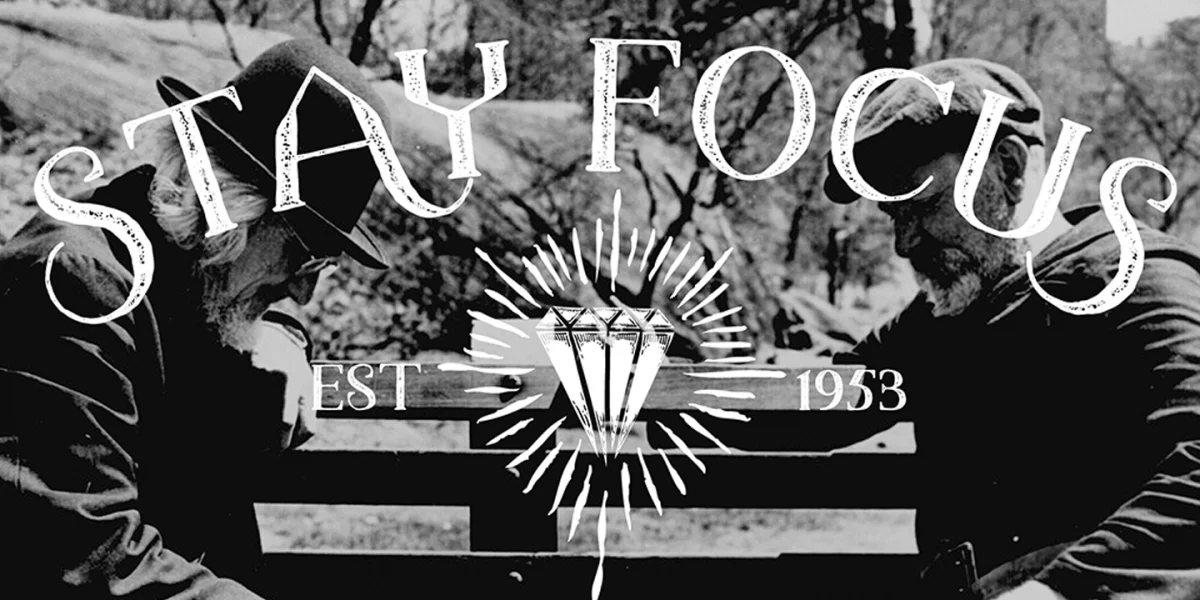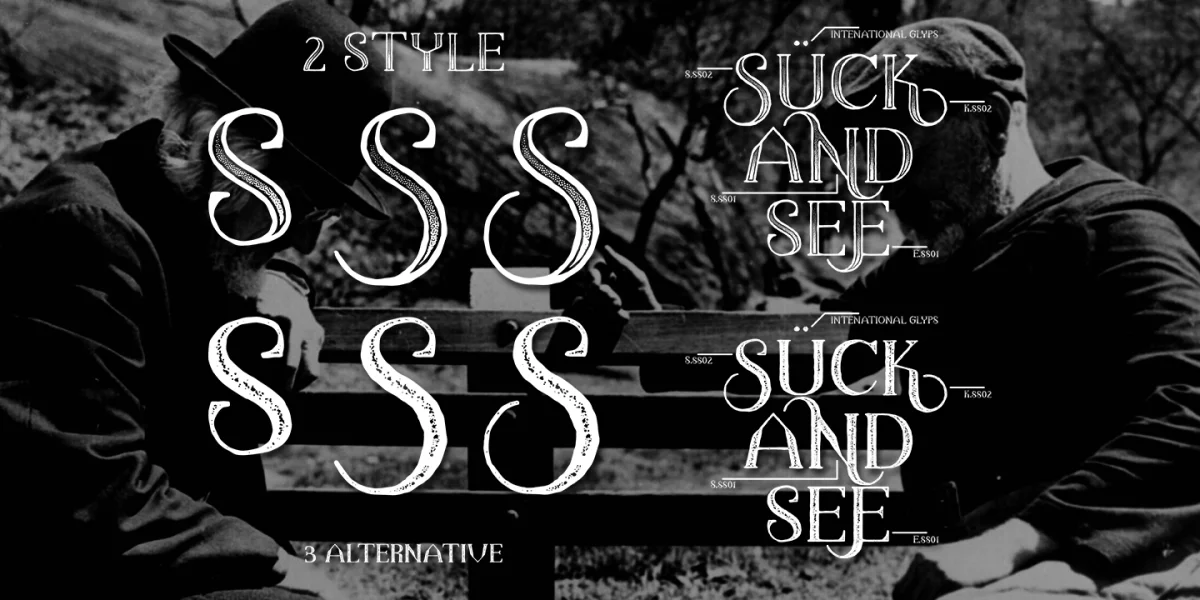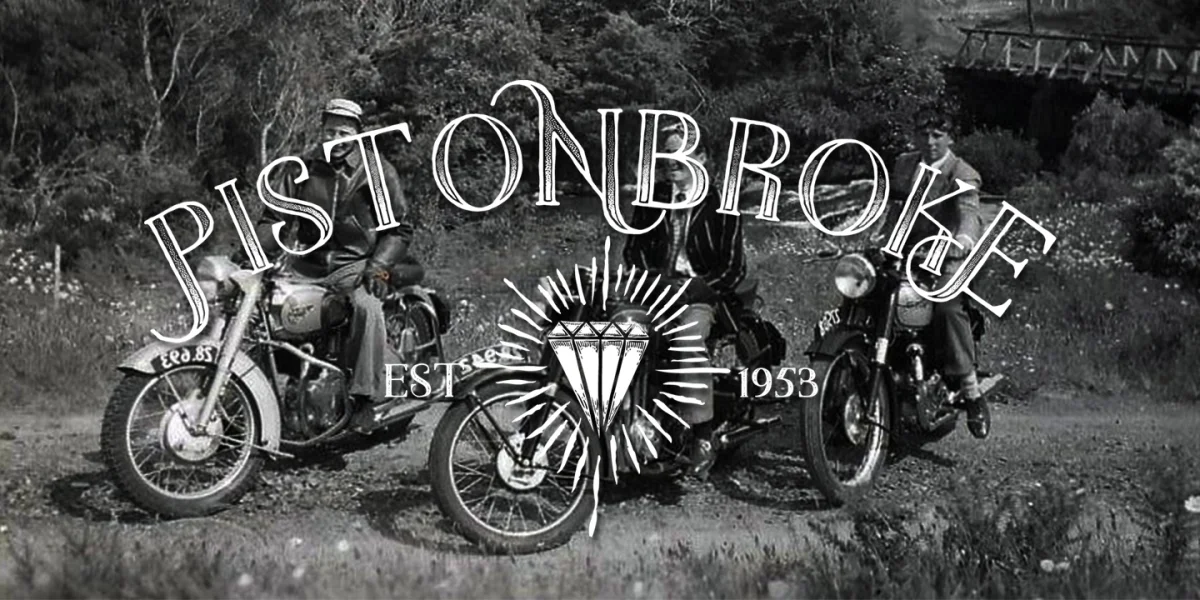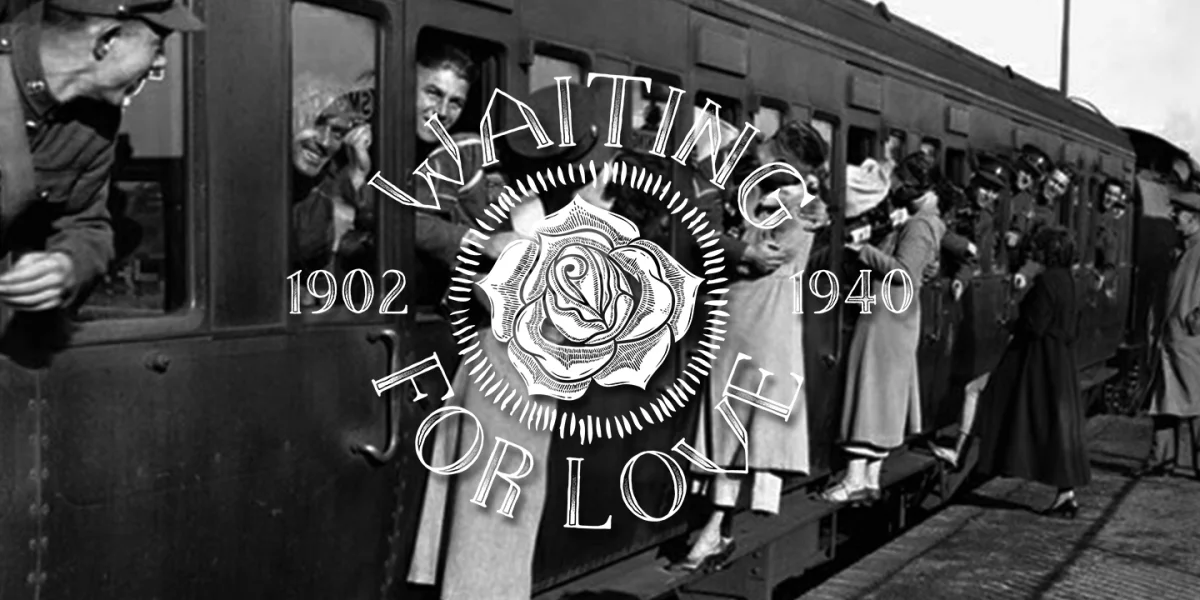
Introducing The Dark Titan Classic a handwriting font with cool character! The Dark Titan Classic perfect for poster design, book covers, merchandise, fashion campaigns, newsletters, branding, advertising, magazines, greeting cards, album covers, and quote designs and more.